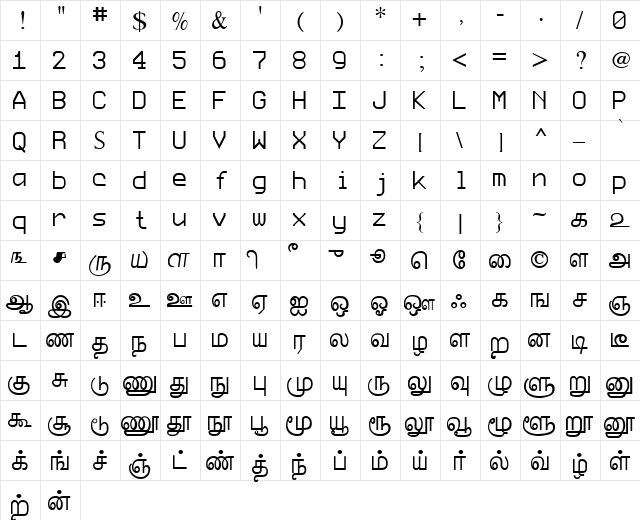
MylaiTSC Regular
Design Context for MylaiTSC Typeface
MylaiTSC is a composed and adaptable typeface that performs quietly and consistently across a wide range of design contexts.